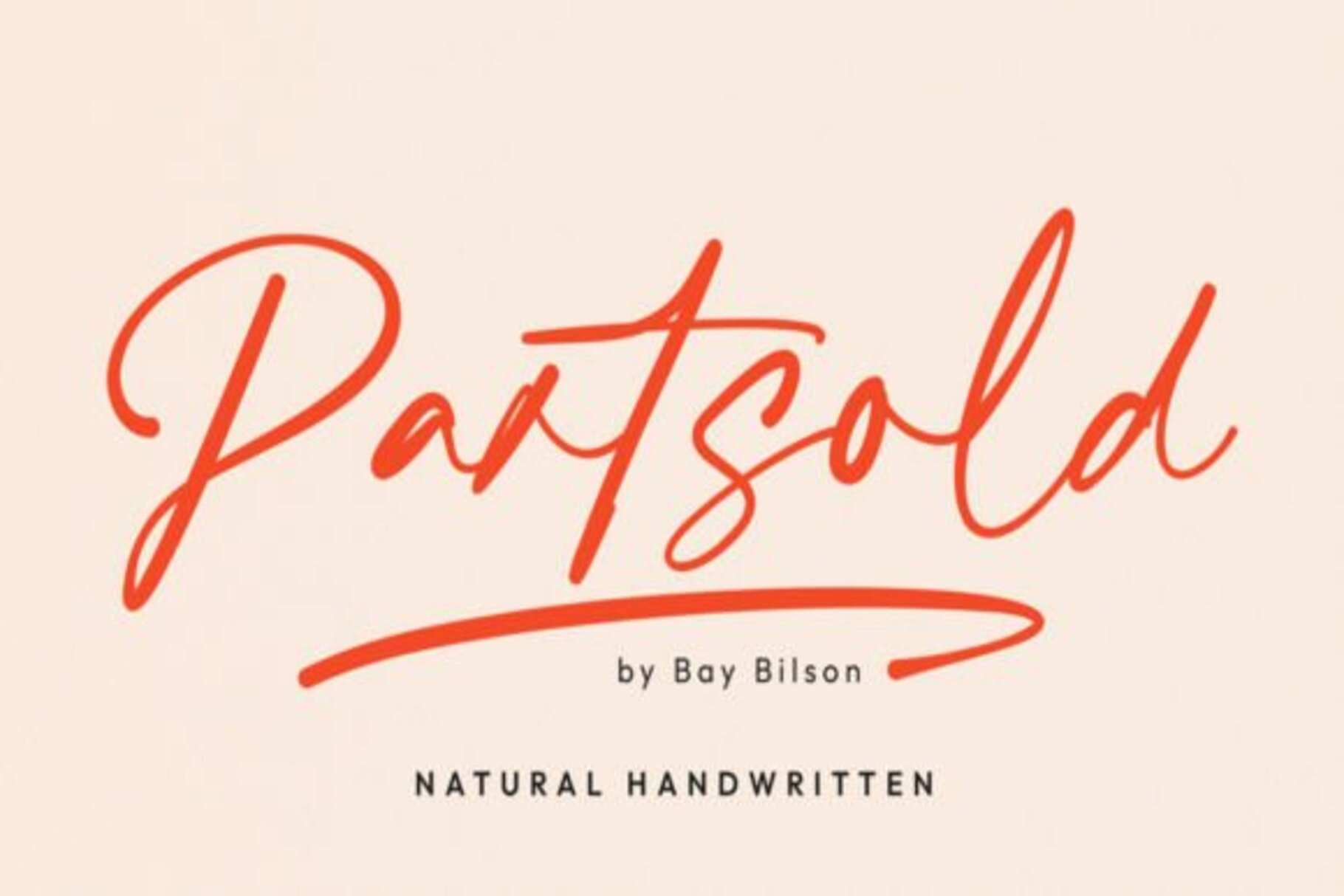
Partsold - Handwritten Font
Partsold is a modern styled font designed to be natural and organic. Designed for brand logos or in collaboration with sans or serif style fonts
-Full alphabet with Uppercase and Lowercase A-Z for script
-Numbers for all fonts
-Punctuation and symbols for all fonts
-Alternates Lowercase script
-Ligature Lowercase script
-Multilingual support all fonts